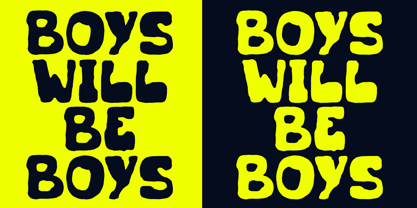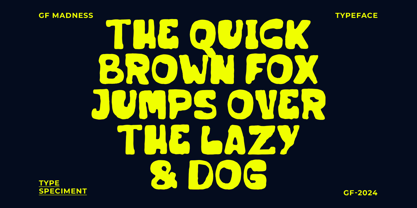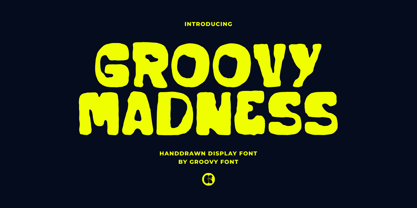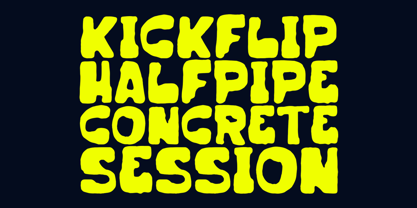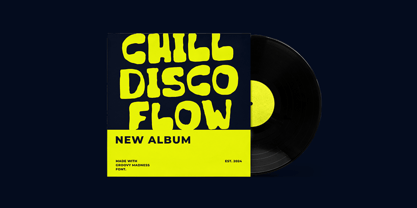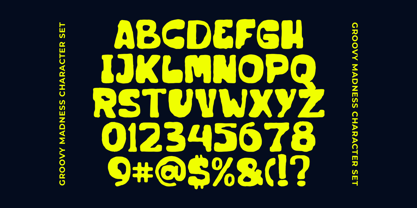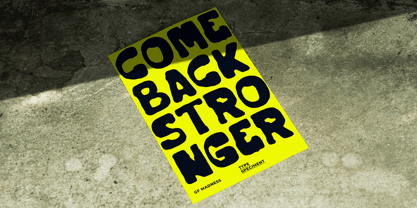
Groovy Madness
by Groovy Font
The Groovy Madness Font Family was designed by Ahmad Ginanjar Riyadi and published by Groovy Font. Groovy Madness contains 1 styles. More about this family
Groovy Madness is a hand-drawn display font with a distinctive street style. This font exudes a rough and bold aesthetic that adds an edgy flair to your designs.
Perfect for projects that call for a rebellious or urban vibe, Groovy Madness stands out with its unique handcrafted look. Add a touch of boldness and attitude to your designs with this eye-catching and unconventional font!
Designers: Ahmad Ginanjar Riyadi
Foundry: Groovy Font